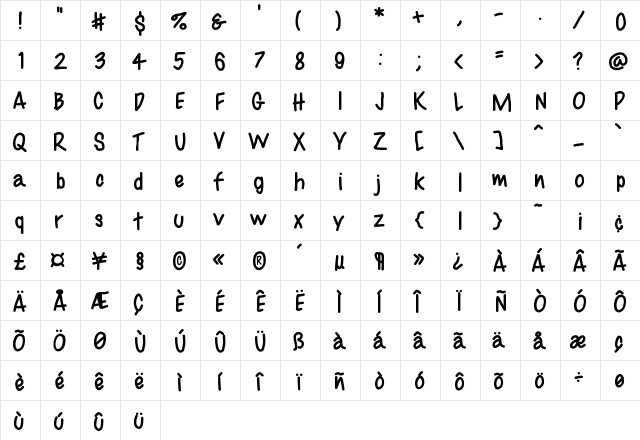
BestFontEvar Medium
Design Context for BestFontEvar Typeface
BestFontEvar is a composed and adaptable typeface that performs quietly and consistently across a wide range of design contexts.
Pro Tip: Pair BestFontEvar with a font of contrasting weight or personality to build a more expressive typographic hierarchy.